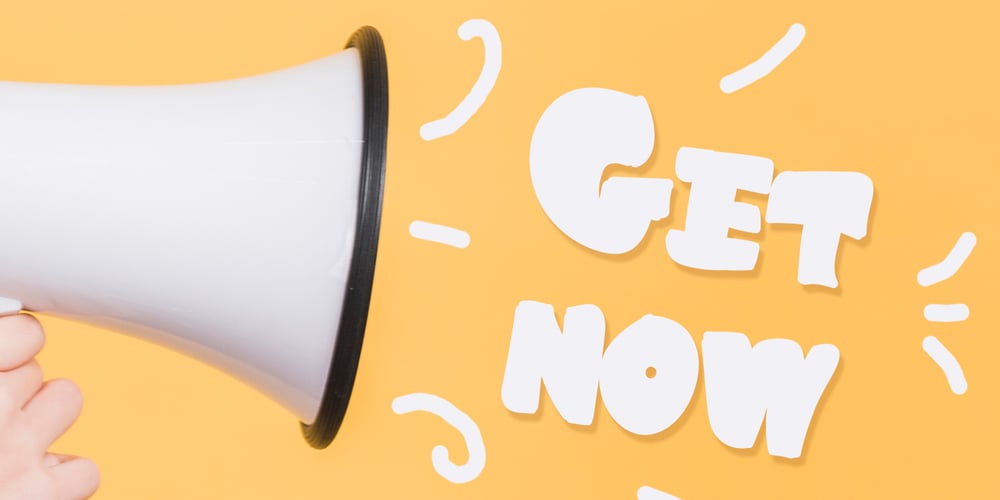
Hamasa
Hamasa font
Hamasa Font Family was designed by Asep Rendi and published by Arendxstudio. Hamasa contains 3 styles and family package options. Hamasa is a very cute font with lots of variation in it that make the atmosphere happy .